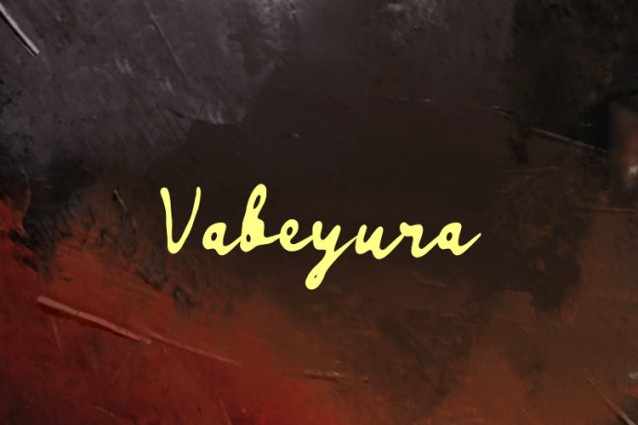
Vabeyura Script Font
Vabeyura Script Font is a simple and friendly handwritten font. Its natural and unique style makes it incredibly fitting to a large pool of designs. The only limit is your imagination!